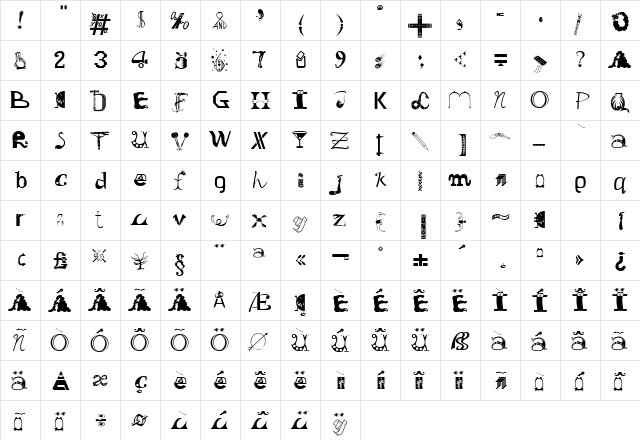
Sylvester Regular
Design Context for Sylvester Typeface
Sylvester is a composed and adaptable typeface that performs quietly and consistently across a wide range of design contexts.